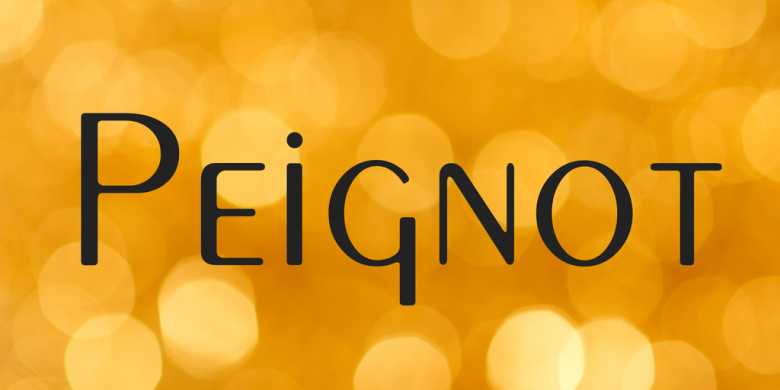
Peignot Font
Peignot is constructed sans-serif display typeface, designed by A. M. Cassandre in 1937. It was commissioned by the French foundry Deberny & Peignot. The typeface is notable for not having a traditional lowercase, but in its place a “multi-case” combining traditional lowercase and small capital characters. The typeface achieved some popularity in poster and advertising publishing from its release through the late 1940s. Use of Peignot declined with the growth of the International Typographic Style, which favored less decorative, more objective typefaces such as Akzidenz-Grotesk.
Peignot experienced a revival in the 1970s as the typeface used on The Mary Tyler Moore Show and the second season of That’s My Mama. While often classified as “decorative”, the face is a serious exploration of typographic form and legibility.